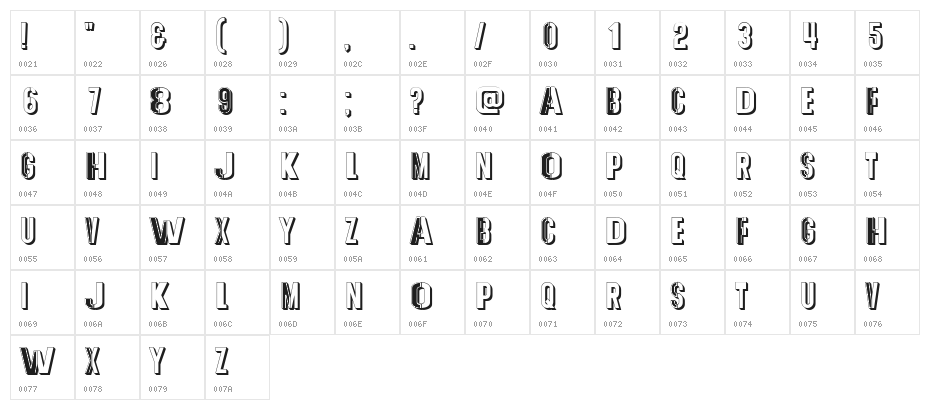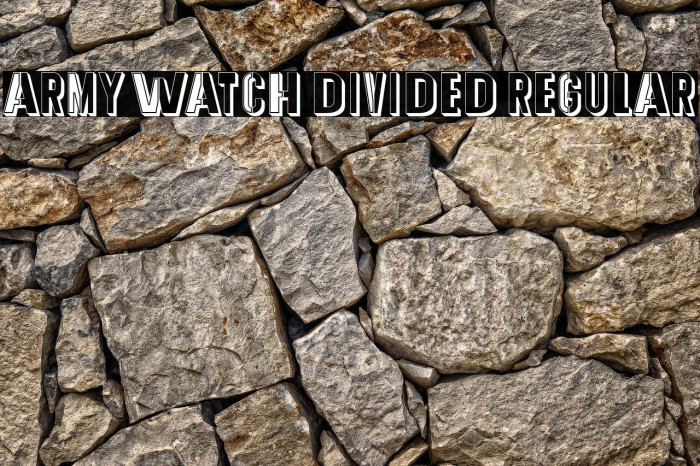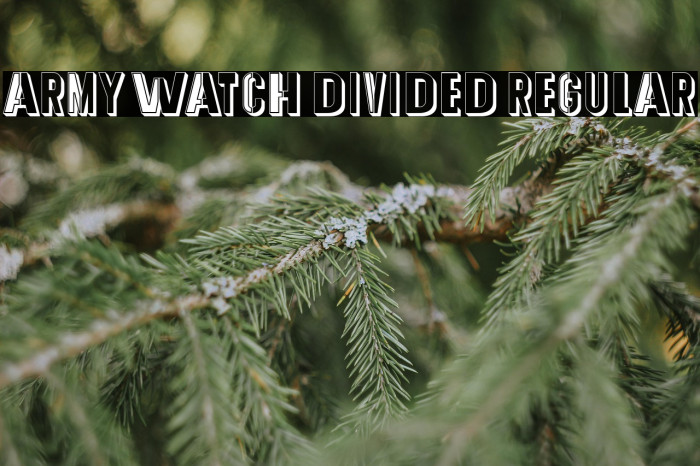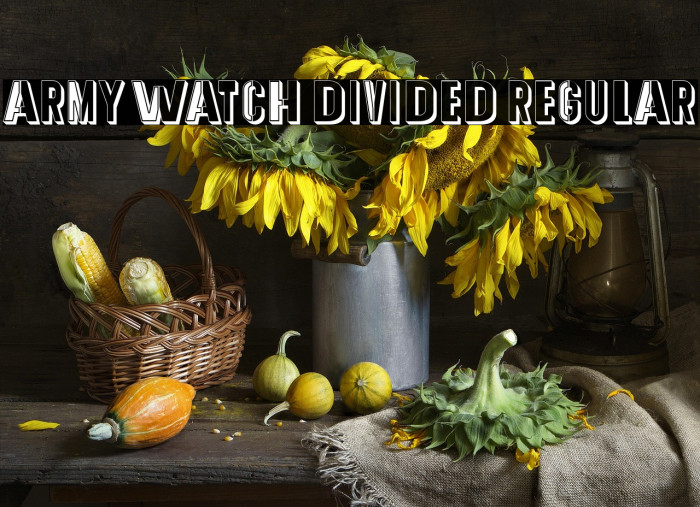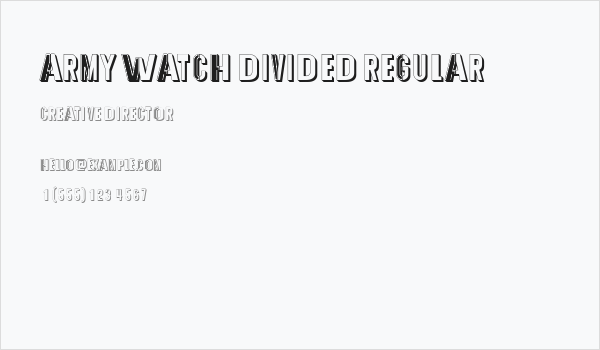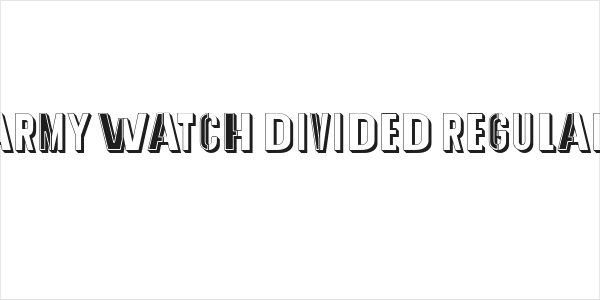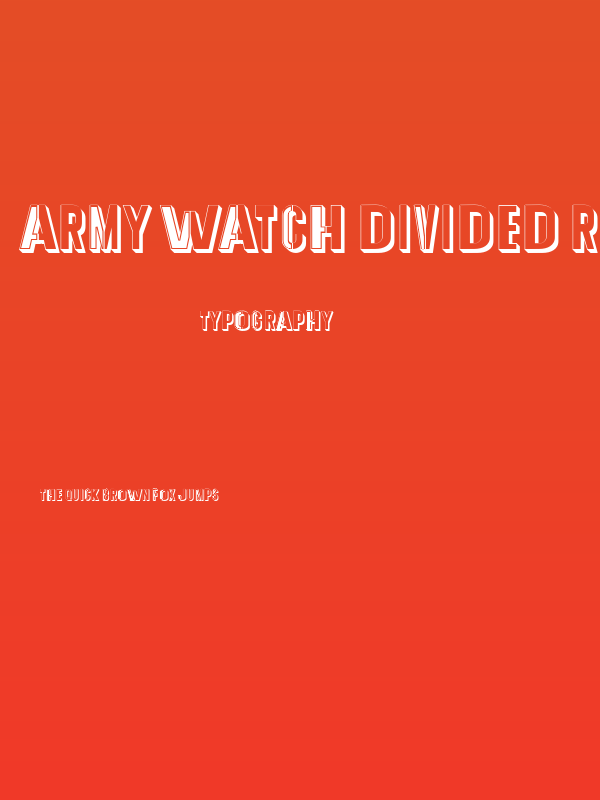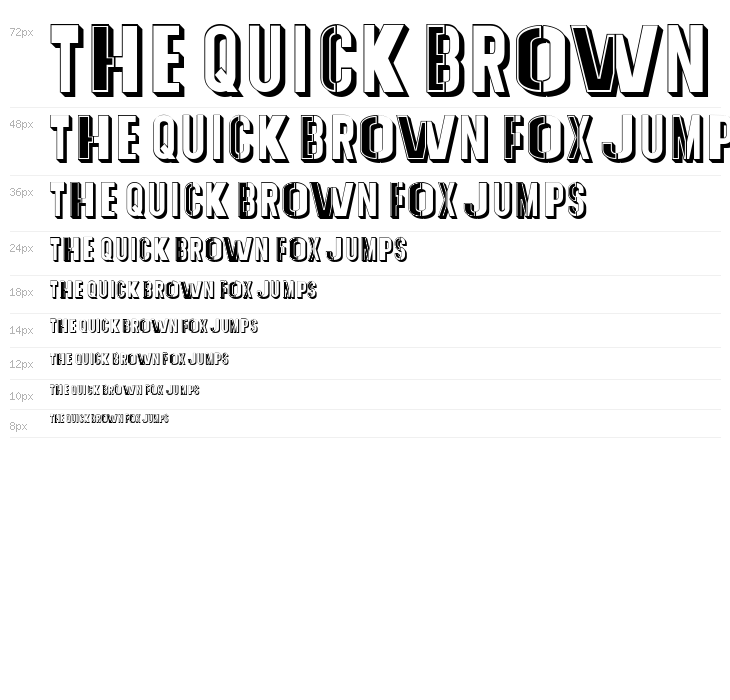
Army Watch Divided Regular Font
Army Watch Divided Regular Description
This font features a bold, impactful design with a distinctive three-dimensional effect. Each character is outlined with a thick black shadow, creating a sense of depth and prominence. The uppercase letters are uniform in height, with clean, straight lines and sharp angles that convey a sense of strength and authority. The numbers and special characters maintain this bold style, ensuring consistency across all glyphs. The font's design is reminiscent of military or industrial themes, making it suitable for projects that require a strong, commanding presence.